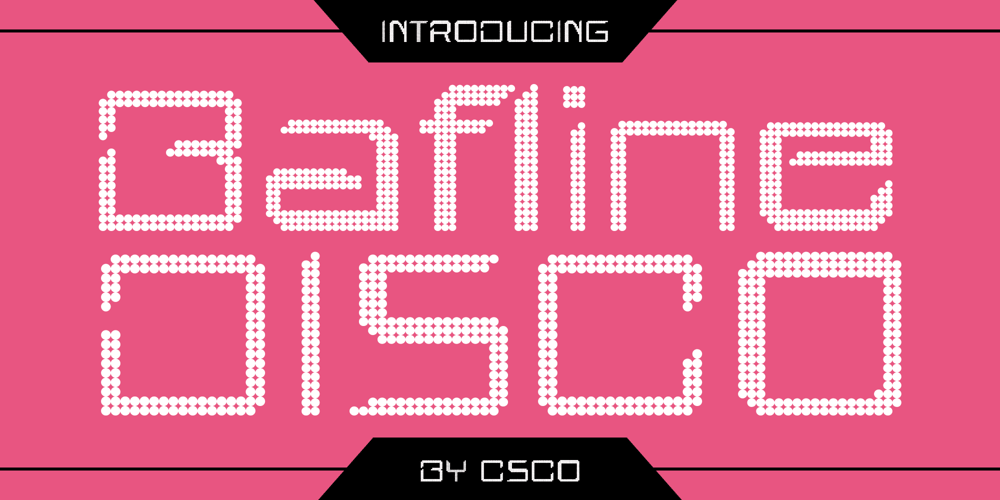
Bafline Disco Font Family was designed by Trio Nazzar Saputra, Wahyu Hadi Yuana and published by Craft Supply Co. Bafline Disco contains 2 styles and family package options. Bafline Disco: A Futuristic Display TypefaceFuturistic DesignBafline Disco features a futuristic display style characterized by low contrast and dynamic dot effects. Its sleek and modern appearance sets the stage for contemporary design projects.Disco-Inspired NuanceDrawing inspiration from the vibrant energy of disco culture, This font infuses a pulsating rhythm into its design. The dot effects evoke the shimmering lights and lively atmosphere of the disco era.Ideal for Eye-Catching DisplaysTailored for eye-catching displays, This font excels in grabbing attention and creating impact. Whether used in posters, album covers, or digital banners, its futuristic allure demands attention.Versatile ApplicationDespite its distinctive disco-inspired aesthetic, This font offers versatility in application. From futuristic-themed events to tech-oriented branding, it adds a touch of contemporary flair to various design projects.Embrace Futuristic VibesThis font stands out as a dynamic display typeface that brings futuristic vibes to life. With its low-contrast design and captivating dot effects, it offers a modern interpretation of disco-inspired aesthetics, making it an ideal choice for those seeking to infuse their designs with energy and excitement.